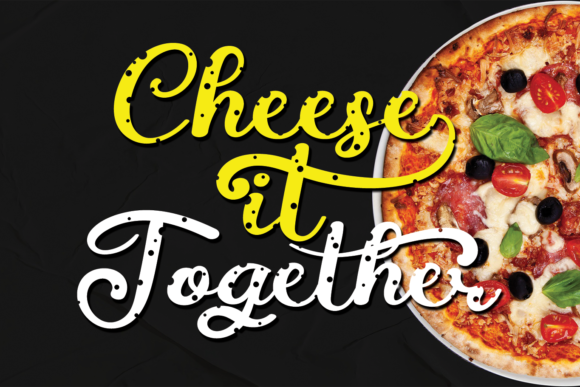
Have you ever been browsing through a beautiful wedding invitation or a luxurious restaurant menu and suddenly felt a spark of inspiration? You see the perfect combination of elegance, sophistication, and style, and you know exactly what you want to create – a design that exudes refinement and poise.
Enter Cheese It Together Font, the perfect tool for designers seeking to elevate their projects to new heights. This chic script font is designed to make a statement, with its stylish alternates and ligatures adding a touch of sophistication to any design. Whether you’re working on a high-end branding project, a wedding invitation, or a luxury product packaging, Cheese It Together Font is the ideal match.
Cheese It Together Font Key Features
- Font Family: Cheese It Together is a unique, handwritten font designed for creative and casual applications.
- Character Set: Includes a wide range of characters, including uppercase and lowercase letters, numbers, punctuation, and special symbols.
- Unique Characteristics: Features a playful, handwritten feel with irregular letterforms and subtle variations in stroke width and spacing.
Designer Review: Cheese It Together Font
Overall, I think the Cheese It Together Font is a great addition to any designer’s toolkit. ✨ It’s a versatile, playful font that’s perfect for adding a touch of whimsy to your designs.
The font’s irregular, hand-drawn feel gives it a unique and charming personality. ✨ I love how it adds a bit of texture and visual interest to text-heavy designs. The font’s multiple weights and styles also make it easy to use in a variety of contexts.
- Playful, hand-drawn feel
- Versatile and easy to use in multiple contexts
- Multiple weights and styles available
- May not be suitable for formal or professional designs
- Some characters may not be as legible at small font sizes
- Not as extensive a character set as some other fonts
Overall, I think the Cheese It Together Font is a great choice for designers who want to add a bit of personality and whimsy to their designs. While it may not be suitable for every project, it’s a great option for designers who want to stand out and have a bit of fun with their typography.
The “Cheese It Together Font” is perfect for:
1. Social media graphics and posts.
2. Blog headings and titles.
3. Wedding invitations and event materials.
4. Food and drink branding and marketing materials.
Alternatives to Cheese It Together Font
Playfair Display is a luxurious, elegant serif font ideal for high-end branding, invitations, and wedding stationery. It features intricate details and ornate flourishes, making it perfect for adding sophistication to your designs.
Comparison to Cheese It Together Font: While both fonts have an elegant feel, Playfair Display is more refined and luxurious. Cheese It Together Font has a more casual, playful vibe.
Pacifico is a beautiful, modern script font that’s perfect for creating a relaxed, beachy vibe. It’s ideal for branding, advertising, and packaging designs that require a laid-back, summery feel.
Comparison to Cheese It Together Font: Pacifico has a more laid-back, casual feel compared to Cheese It Together Font. While both fonts are script-based, Pacifico has a more fluid, handwritten look.
Ostrich Sans is a modern sans-serif font that’s perfect for creating clean, minimalist designs. It’s ideal for branding, advertising, and packaging designs that require a simple, yet effective look.
Comparison to Cheese It Together Font: Ostrich Sans has a more modern, minimalist feel compared to Cheese It Together Font. While both fonts are sans-serif, Ostrich Sans is more geometric and clean-cut.
Q: Does the Cheese It Together Font support ligatures and swashes?
Yes, the Cheese It Together Font includes a range of ligatures and swashes that can be accessed through your design software’s font menu. These features allow you to add an extra layer of sophistication and flair to your typography.